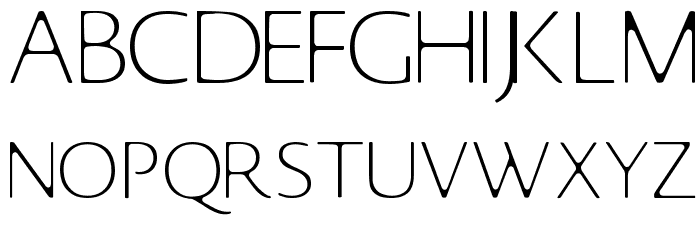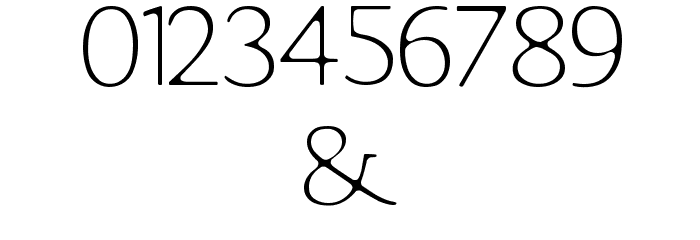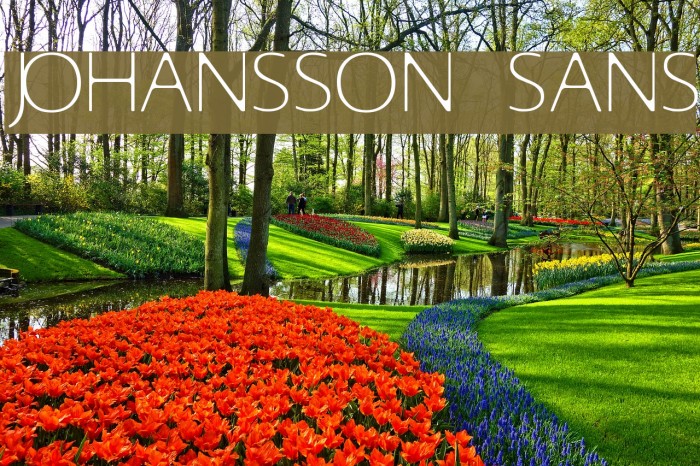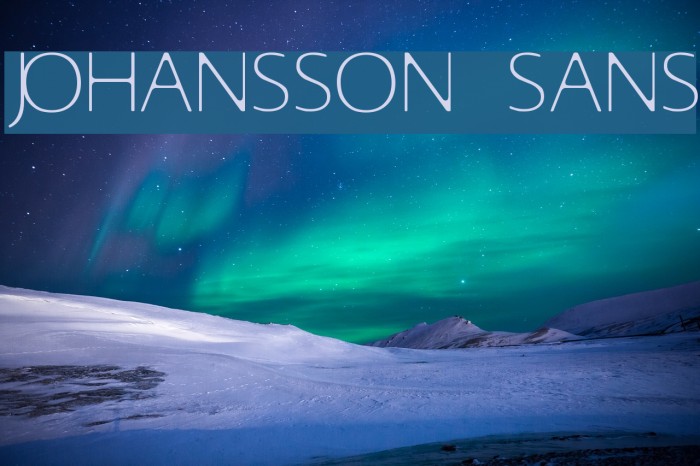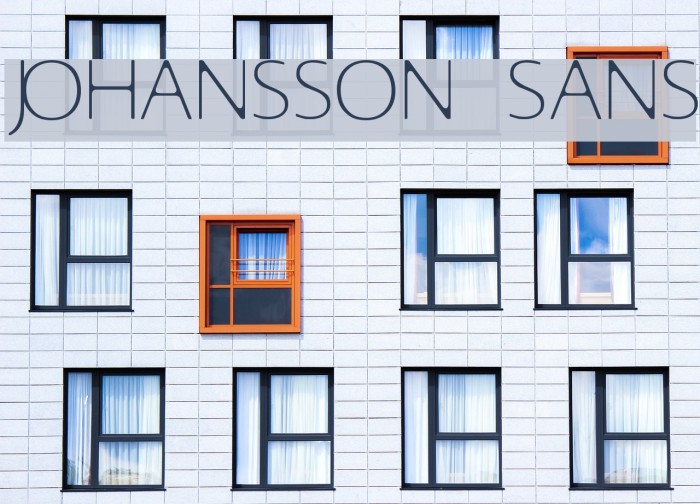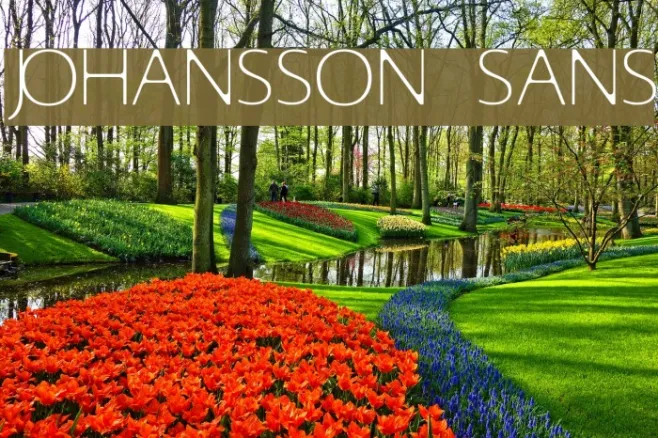
Johansson Sans Font
This font exhibits a clean and modern sans-serif style with a subtle elegance. The characters are sleek and slightly elongated, providing a sophisticated appearance. The uppercase letters are uniform in height, while the lowercase letters maintain a consistent baseline, enhancing readability. The numbers are well-proportioned, and the special characters are designed with a minimalist approach. The overall design is balanced, making it suitable for various applications where clarity and style are essential.
A modern, elegant sans-serif font with sleek, elongated characters.